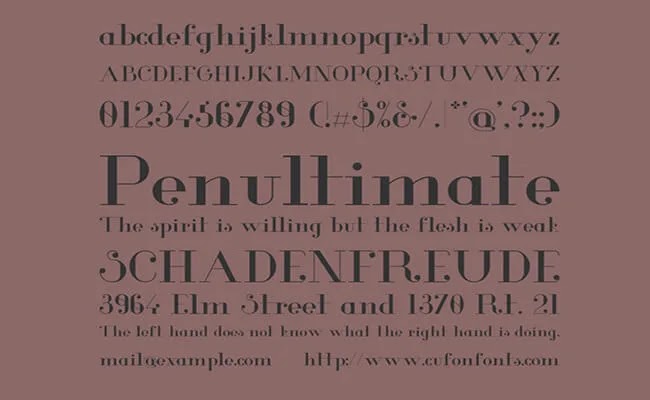
Best Serif Fonts 2020
The serif fonts will tend to be thought of as exemplary and customary, while sans-serif typefaces are thought of as progressively current and contemporary. So, we are offering some of the best serif fonts that look elegant and modern while utilizing.
Unna Font Family
Unna Font is an exemplary serif typeface with solid serifs stems, that comes in eight exceptional styles. Styles incorporate customary, italic, light, medium, strong, light italic, medium italic, and striking italic.
Serif textual styles have a little line or stroke routinely joined as far as possible of a bigger stroke in each letter or image as same in Unna typeface. It improves its neat appearance with an exceptional difference.
Unna includes a wide scope of content styles to serve an assortment of configuration causes. Jorge de Buen from Omnibus Type foundry took the charge for structuring and discharging it just because.
Its solid vertical characters and differentiating fine hairline serifs. Are substantial however exquisite and ideal for a feature and show use as same as any neoclassical typeface. Review the letters guide to know more.
Glamor Font Family
Glamor Font is an exemplary essential serif typeface. Hendrick Rolandez took the charge for structuring and discharging it just because. It has around 24 one of a kind styles perfect for a superior text style matching.
This is an advanced age typeface having an a la mode surface with profoundly alluring appearance. It incorporates all essentials of a serif typeface marvelousness text style additionally has honed edges slim spots and chic appearance.
You can see the textual style lettering pictures secure in here to get more thought regarding the surface of this tasteful text style family. It is the most significant assignment for each planner to choose a reasonable textual style on every one of its structuring adventures.
In the event that originators involve a spotless and sharp text style matching perspective, at that point he continues rousing and astonishing their crowds or customers without a doubt. This text style can likewise be utilized as an option in contrast to Vogue Font Family.
Athene Font Family
The Athene Font is a perfect piece of serif text style family. Matt Ellis took the charge for structuring and discharging it just because. Architect for this textual style takes gigantic consideration for the clarity of every single character including. This is a cutting edge geometric typeface that arrives in a savvy surface and awesome emphasis.
Having huge dialects backing and sharp highlights this textual style family is perfect for enormous planning show capacities. You can see increasingly about this serif typeface in the textual style lettering picture we affix in here. To get a thought regarding how your plan is going to look like in the wake of utilizing Athene typeface.
Cormorant Font Family
Cormorant Font is a rich serif text style family that arrives in an assortment of printed styles and wights game plans. This single textual style family has 45 special surfaces alongside notable highlights.
This extraordinary typography is structured by Christian Thalmann, and Catharsis Fonts took the charge for discharging it just because. It gets a lot of notoriety in extremely less term.
According to this different assortments of textual style styles, Cormorant Font Family is perfect for a best text style paring plan. You can review a couple of the styles lettering maps in the imaged we affix in here.
It is superbly drawn, separated, kerned by the originator specialists. This open-source serif typeface is additionally included into the google text styles leaning to make the more lovely, and quick.
Vijaya Font Family
Vijaya Font Family is a powerful typeface by Microsoft Corporation. Perfect for the feature banners and magazine shows. Vijaya typeface has two rich essential styles, customary and striking.
Highlighting high-grade content structures and sharp characteristics this tasteful textual style is one of the most mainstream typefaces. It was made basically to grandstand Tamil writings. Additionally remembered for the Windows 7 working framework.
According to its tremendous dialects bolsters it can likewise be utilized in different dialects than Tamil. Numerous fashioners are meeting their ordinary plans prerequisites with it and creating some fantastic structures.
There are old-style figures and forbidden figures accessible alongside adaptable letters and uncommon imprints. View the character map pictures here to know its careful printed stream.
AR Julian Font Family
AR Julian Font Family is a smooth rich serif typeface. That involves a solitary one of a kind and profoundly clear normal style. Perfect for any feature or bigger showcase plan activity.
Surface for this textual style has a quality of including slight lines on one hand of a character while others have an appropriate smooth book from as you can review from the pictures we secure.